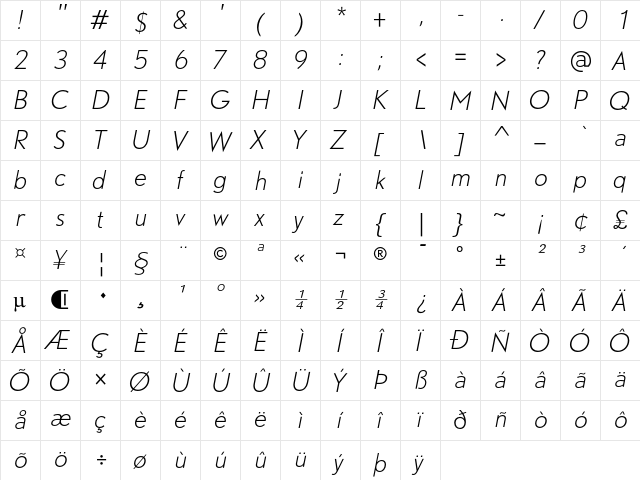
DTL Nobel T Light Italic
Design Context for DTL Nobel Typeface
DTL Nobel takes a measured approach to typography — its balanced proportions and neutral character make it a reliable workhorse for both digital and print work. The dynamic lean of this cut emphasises speed and emphasis in any layout. Its slender proportions lend an understated elegance to any composition.
Pro Tip: Use DTL Nobel for emphasis, pull quotes, and subheadings where its slanted energy can add rhythm to the layout.